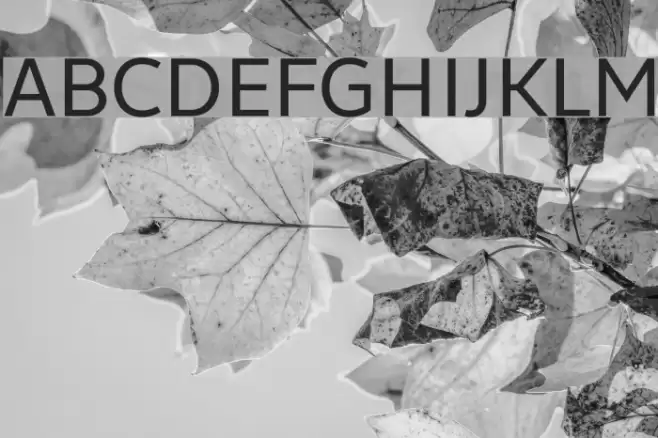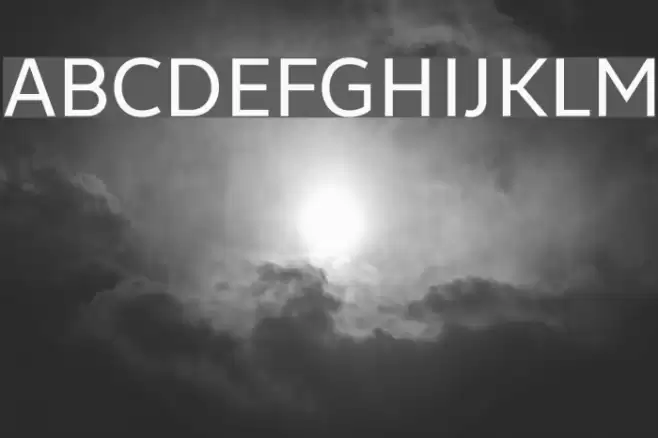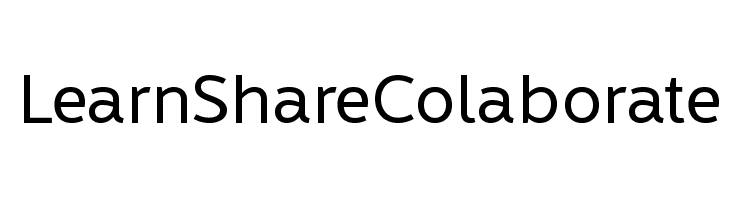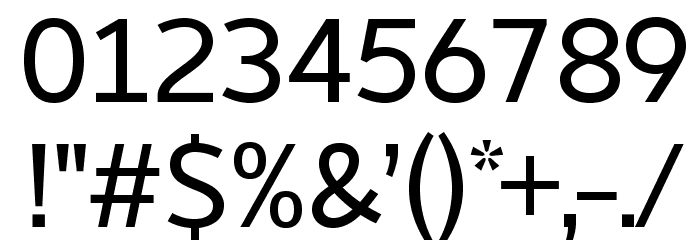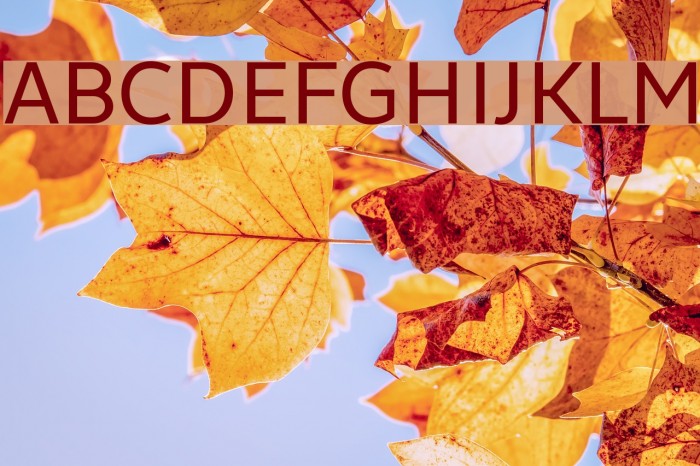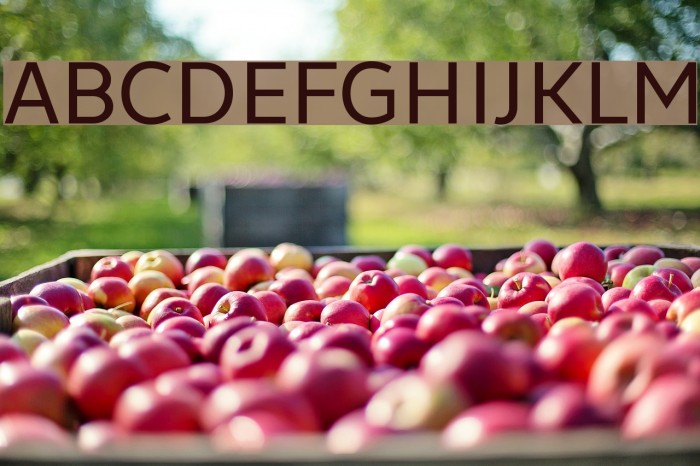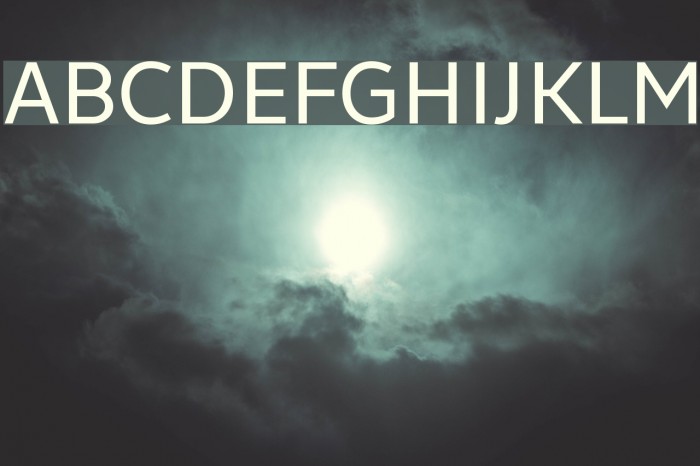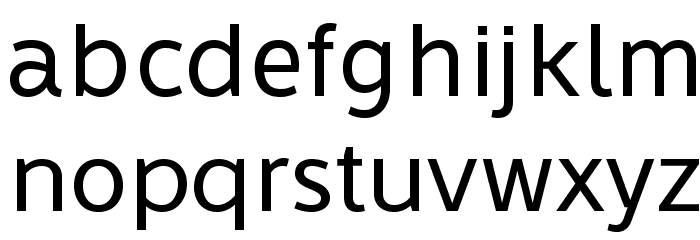
LearnShareColaborate Font
LearnShareColaborate Description
This font presents a clean and modern aesthetic with a sans-serif style. The characters are well-proportioned and exhibit a uniform stroke width, contributing to its legibility and simplicity. The uppercase and lowercase letters maintain a consistent design, with rounded edges that soften the overall appearance. The numerals are clear and distinct, ensuring readability in various contexts. Special characters are designed with the same attention to detail, making this font versatile for a wide range of applications. Its straightforward and uncluttered design makes it suitable for both digital and print media.
A modern, sans-serif font with clean lines and uniform stroke width from Uncategorized fonts.
- Proposed Projects: Ideal for web design, corporate branding, user interfaces, and editorial design.